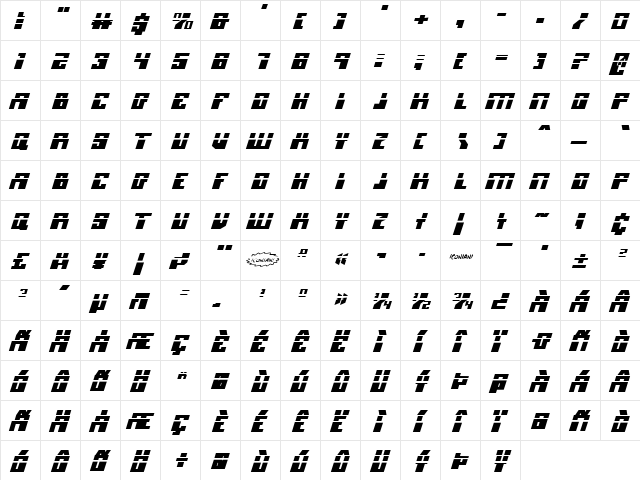
Micronian Laser Italic Italic
Design Context for Micronian Laser Italic Typeface
Micronian Laser Italic is a composed and adaptable typeface that performs quietly and consistently across a wide range of design contexts. The slanted form adds forward momentum and visual energy.
Pro Tip: Try Micronian Laser Italic for annotation and caption copy alongside an upright companion — the contrast in angle creates a dynamic but ordered typographic system.